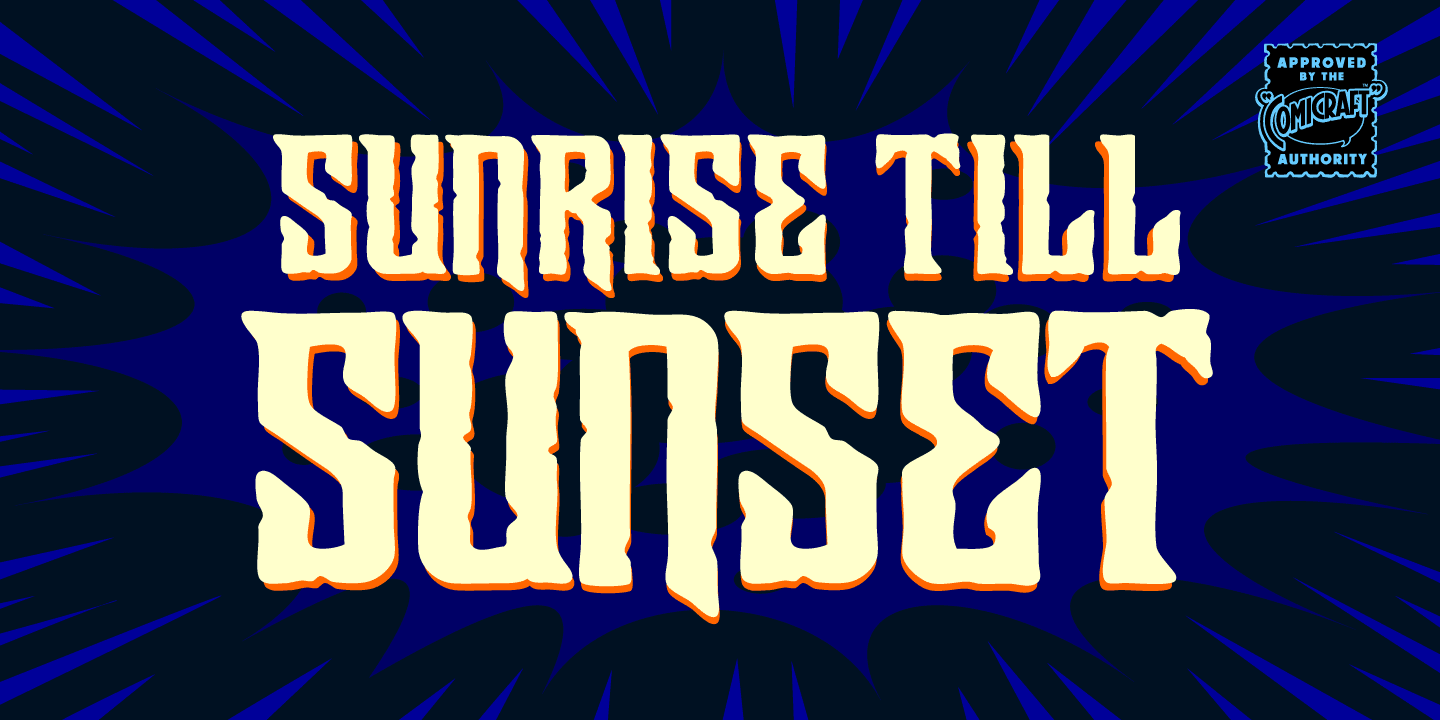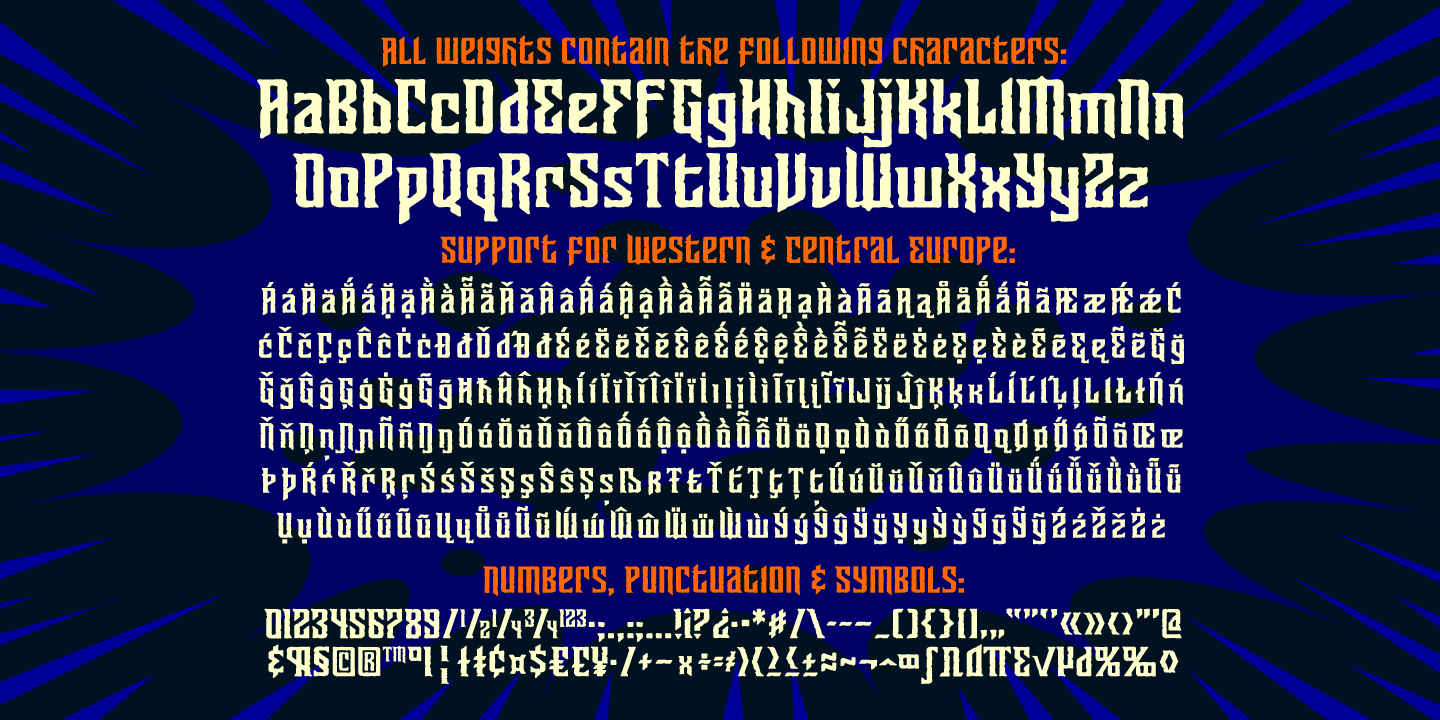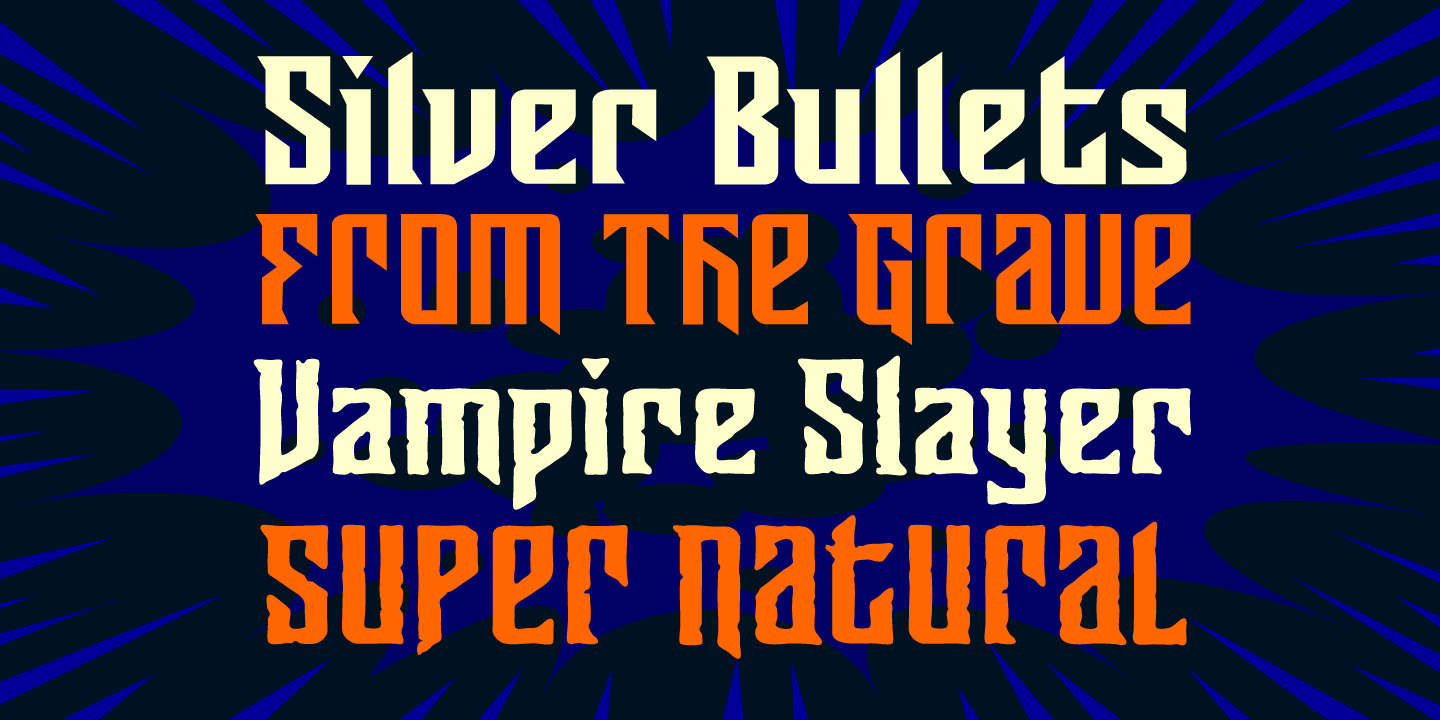
Sunrise Till Sunset
Between twilight and daybreak it is said that the dark side of the human psyche eclipses the sun that shines from the depths of our souls. Certainty turns to doubt, clarity becomes confusion, man turns into wolf, the dead wake, vampires seduce the young are restless and milk boils over on the stove.
Those that seek only to bathe in the light of a romantic new moon often end their tragic lives soaked in nothing other than their own blood, and the milk spilt on the stovetop has no one left to cry over it. There are fifty shades of grey during those hours after sunset and I think just as many in my porridge this morning.
Yes, okay, I admit it, I spoiled the milk! This porridge tastes like it was left in a graveyard overnight. Death warmed over. Gothic and lumpy. Just like the two weights of this font.